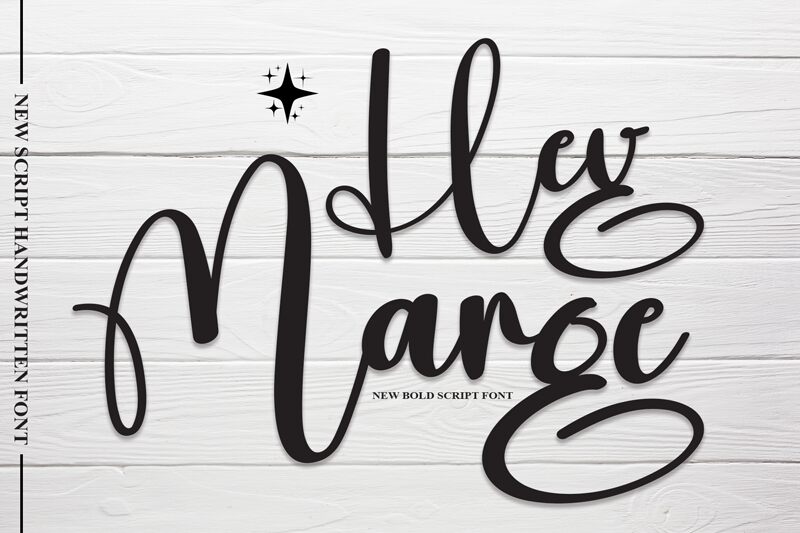
Hey Marge
Hey Marge, a stunning calligraphy font designed by Scratchones, exudes elegance and grace with its semi-light weight.
Its flowing curves and ornate strokes make it perfect for luxury brand logos, wedding invitations, and feminine-themed projects. Hey Marge's delicate yet confident appearance adds a touch of sophistication to fashion magazines, beauty blogs, and boutique signage. This versatile font typeface captivates viewers with its timeless charm and is also suitable for creating artistic prints, poetry books, or inspirational quotes that evoke a sense of romance and creativity.